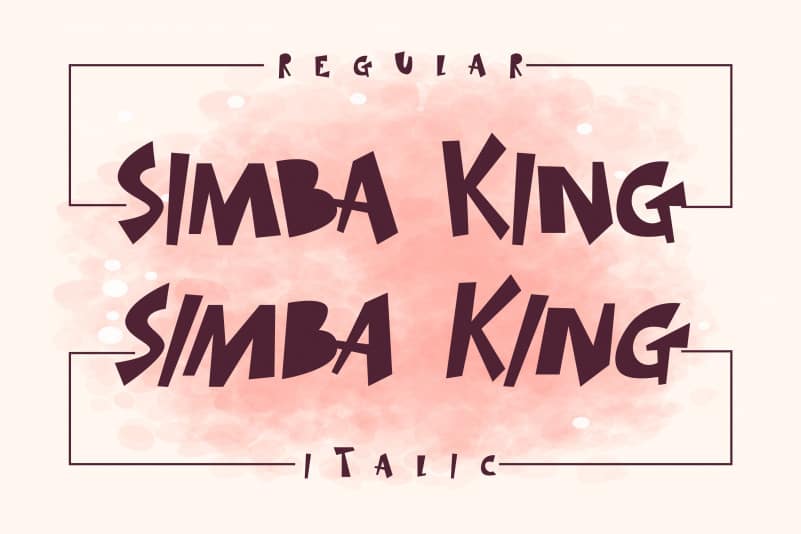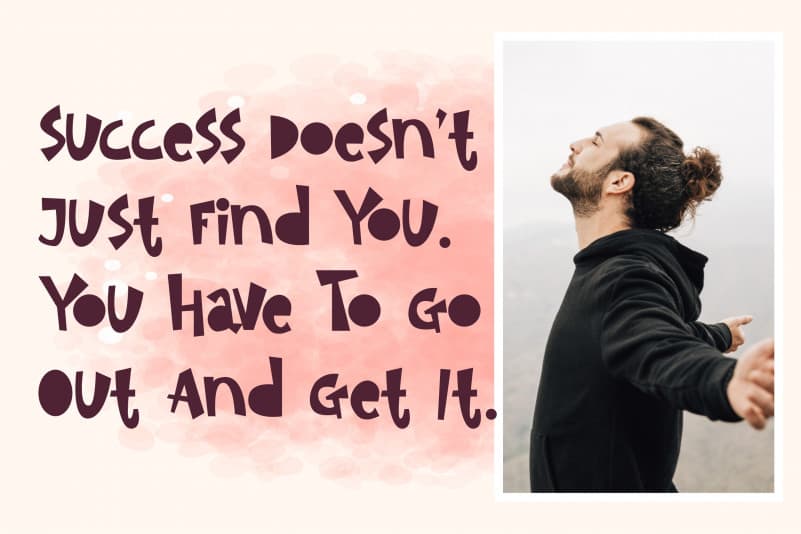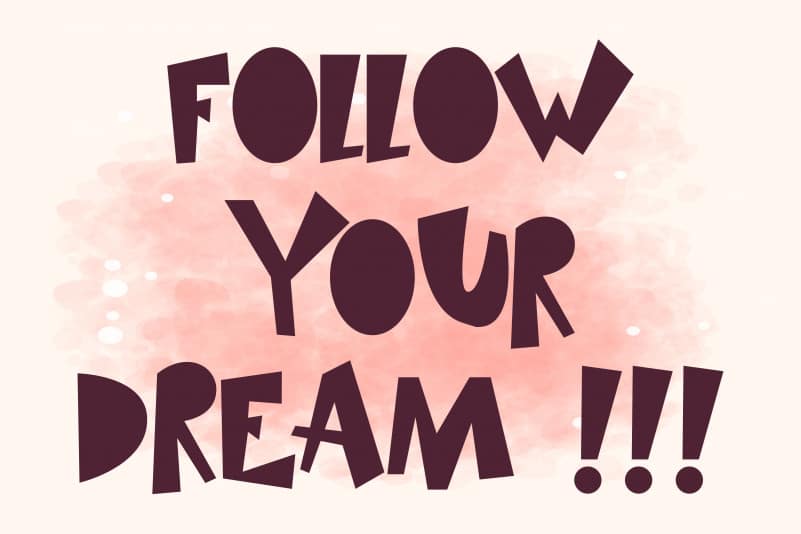
Simba King Display Font
Simba King Display Font is a fun cartoon like display font. A little bit quirky, this font looks incredibly adept on a wide variety of contexts!